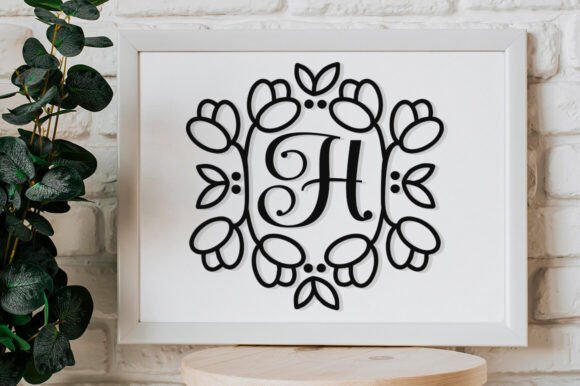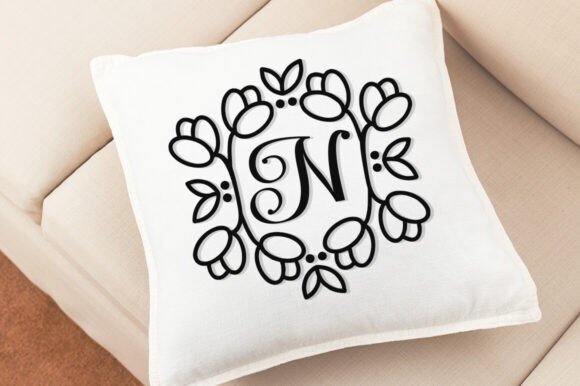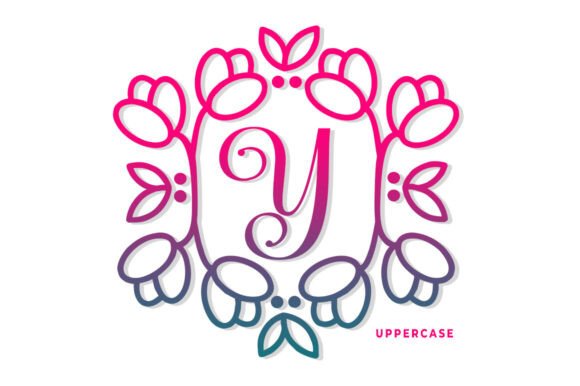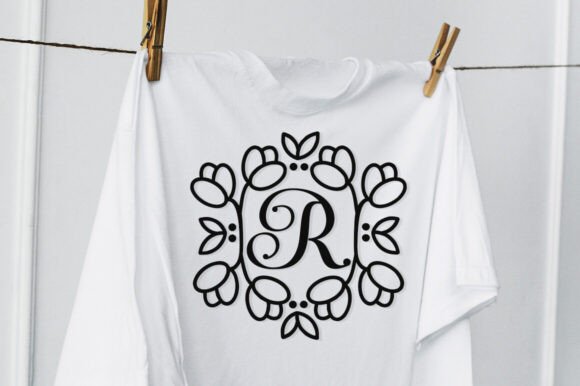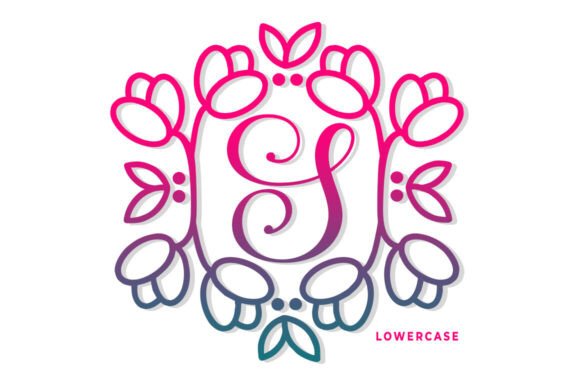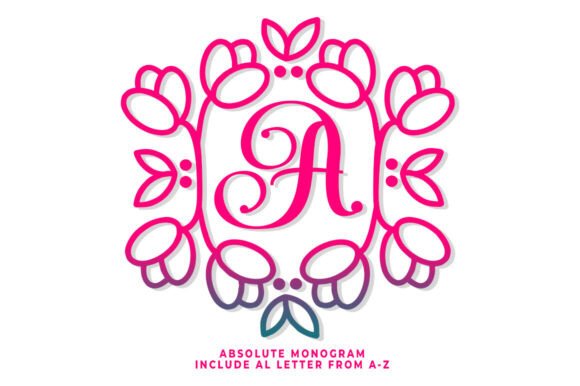
The Magic of Absolute Monogram: Elevate Your Designs with Elegance
I’ll never forget the time I was working on a wedding invitation project, and my client asked for a font that exuded luxury and sophistication. I scoured the internet, tried countless fonts, but nothing seemed to fit the bill. That was until I stumbled upon Absolute Monogram. This artisanal decorative font has been a game-changer for me, and I’m excited to share its magic with you.
I’ve had the pleasure of working with Absolute Monogram, and here’s what I think:
- ✨ Elegant and sophisticated: This font is perfect for projects that require a touch of luxury and refinement.
- ✅ Highly customizable: With OpenType features and glyphs, you can mix and match to create unique combinations.
- 💫 Striking details: The font’s intricate accents and finishes make it stand out from more basic fonts.
Now, I’m not going to sugarcoat it – there are a few quirks to consider:
- 🤔 Learning curve: With so many features and glyphs, it may take some time to get familiar with the font.
- ⚠️ Not suitable for body text: Absolute Monogram is best used for headlines, titles, or decorative text – it’s not meant for long blocks of text.
The Story Behind Absolute Monogram
Legend has it that the designer behind Absolute Monogram was inspired by the intricate details of luxury jewelry. They spent countless hours perfecting the font’s elegant lines, delicate swashes, and ornate flourishes. The result is a font that shines with sophistication and refinement.
| What type of projects is Absolute Monogram best suited for? | Absolute Monogram is perfect for luxury branding, wedding invitations, stationery, social media graphics, and greeting cards. |
| Can I use Absolute Monogram for body text? | No, Absolute Monogram is best used for headlines, titles, or decorative text. It’s not suitable for long blocks of text. |
| Does Absolute Monogram come with OpenType features? | Yes, Absolute Monogram comes with a range of OpenType features, including glyphs, stylistic alternates, and swashes. |
Absolute Monogram is a true gem in the world of typography. Its elegant lines, delicate swashes, and ornate flourishes make it perfect for luxury branding, wedding invitations, and creative projects. With its highly customizable OpenType features and extensive glyph library, you’ll be able to create unique and captivating designs that leave a lasting impression.